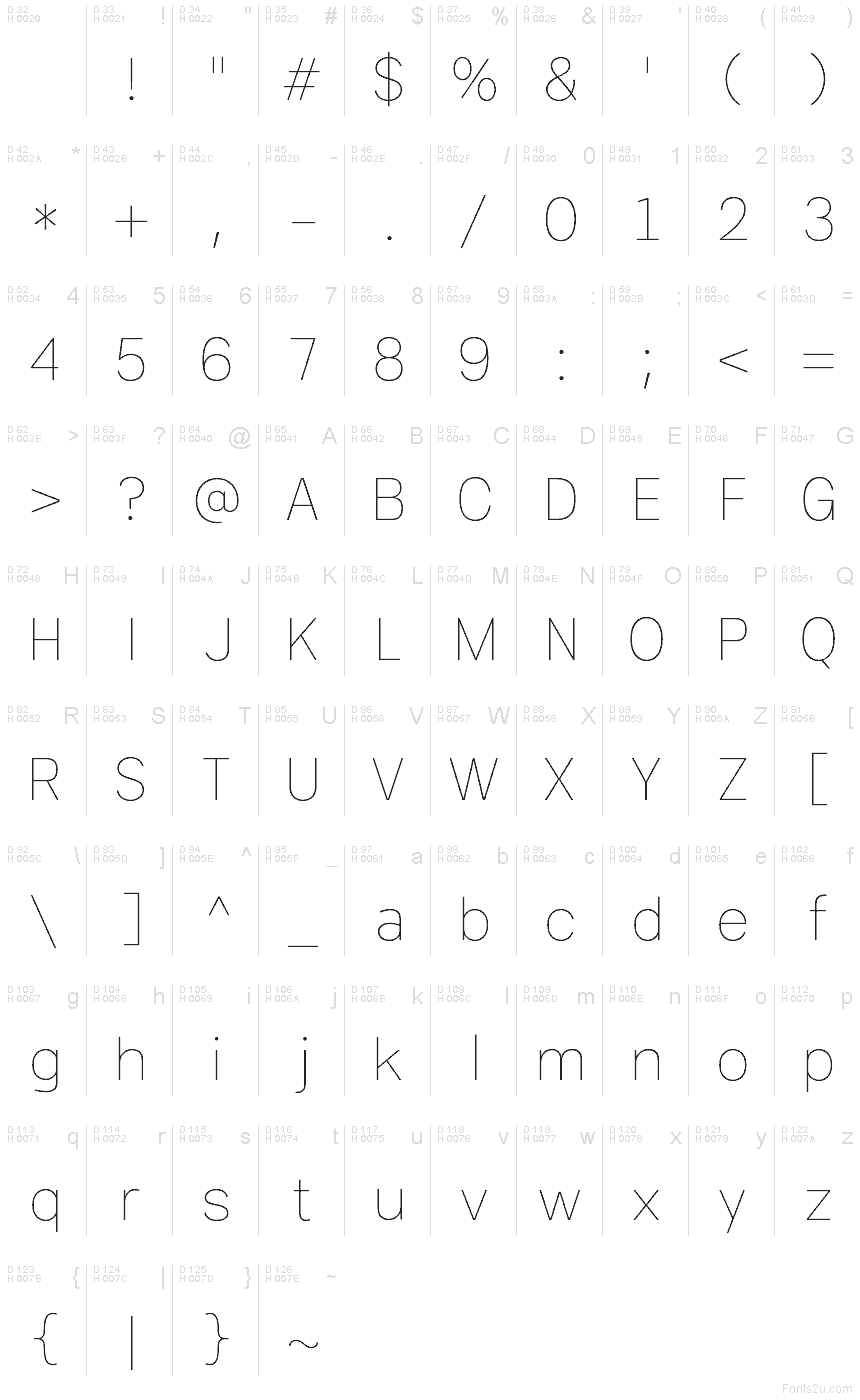
Mucitan Sans Thin
Mucitan Sans Thin font is the newest light sans serif from Fitrah Type. This free resource adds quality to any of its users’ projects with its minimalist style and clean lines, which give off a contemporary sleek look. The geometric letters are distracted of most decorative details; they instead carry a modern aesthetic while keeping legibility as central feature.